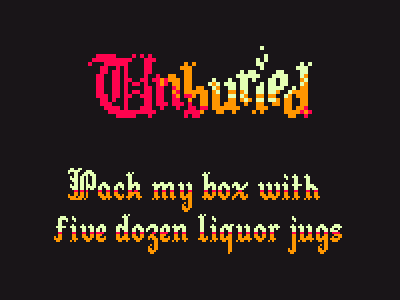
Gothic Medieval font for a game
@jaycobs - What a wonderful pixel font!
A beautiful blackletter type, as a pixel font this is even more impressive. Thank you for the LC diacritics and speech marks, it makes the font truely useful for some Europeans -ex. German Hungarian Welsh Scandinavians :) If you find the time would you please add œ and ÿ for French text .